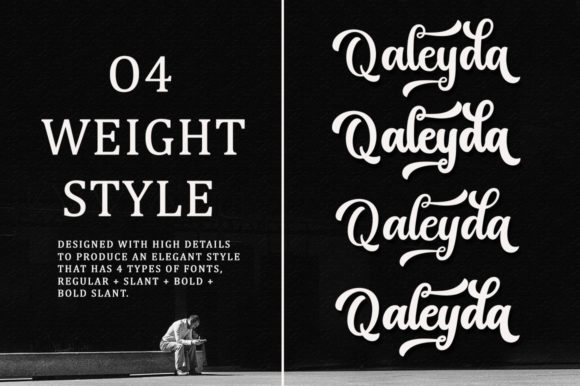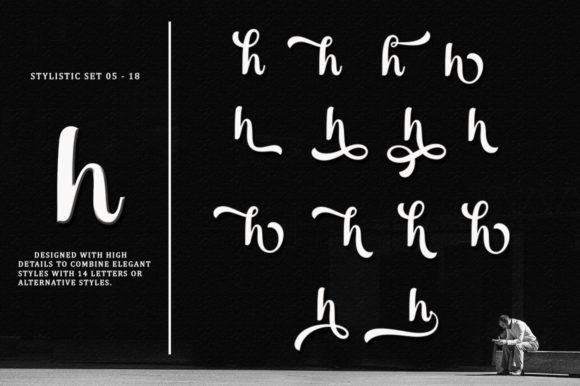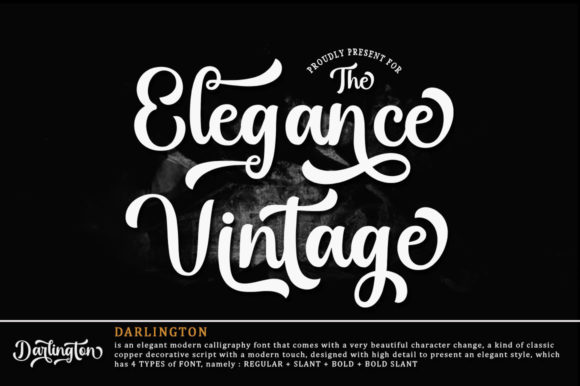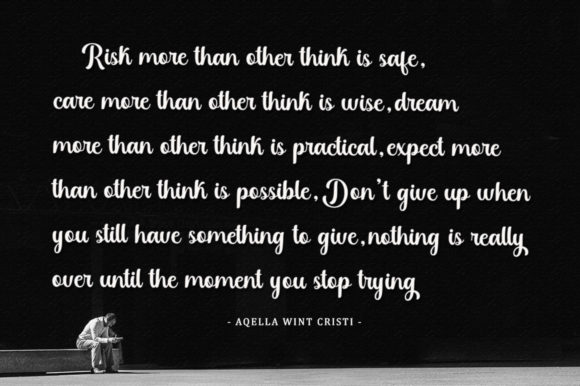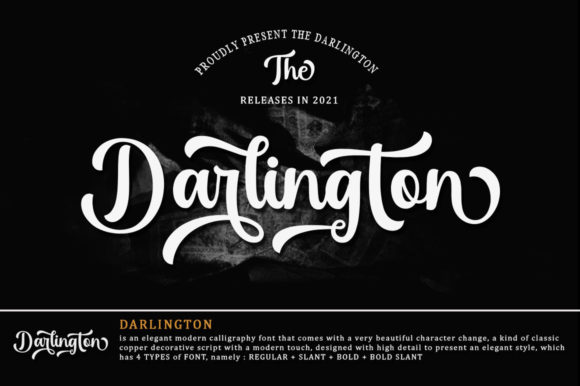
Discover the Elegance of Darlington Font: A Timeless Calligraphy Typeface
In the world of typography, few fonts manage to strike a balance between classic elegance and modern flair. Darlington Font is one such exceptional typeface that embodies sophistication, making it a versatile choice for various design projects. This beautiful calligraphy font is not only a feast for the eyes but also a testament to meticulous design, offering a blend of traditional charm and contemporary appeal.
The Unique Charm of Darlington Font
Darlington Font stands out for its elegant character changes, presenting a classic decorative script with a modern touch. The high level of detail in its design ensures that it exudes an air of elegance, making it perfect for projects that demand a refined aesthetic. The typeface boasts a pleasing appearance, characterized by clean lines, a feminine touch, sensuality, and a dash of glamour, all while maintaining simplicity and readability.
One of the key advantages of Darlington Font is its versatility. Its classic yet modern style makes it suitable for a wide range of applications, from formal to creative projects. Designers and crafters can use Darlington Font in:
- Invitations: Add a touch of sophistication to wedding invitations, birthday parties, and other formal events.
- Labels and Packaging: Elevate product labels and packaging with a stylish and elegant look.
- Restaurant Menus: Create memorable dining experiences with beautifully designed menus.
- Logos: Use Darlington Font to craft unique and memorable logos for brands.
- Fashion and Makeup: Perfect for fashion designers and makeup artists looking to add a luxurious feel to their branding.
- Stationery: Enhance notebooks, journals, and other stationery items with a touch of elegance.
- Novels, Magazines, and Books: Add a classic touch to publications, making them stand out.
- Greeting/Wedding Cards: Create heartfelt and stylish greeting cards.
- Advertising: Use Darlington Font in various advertising materials to capture attention with its glamorous appeal.
Darlington Font comes with PUA (Private Use Area) encoding, a significant advantage for designers. PUA encoding allows easy access to all the amazing glyphs and ligatures, enabling designers to fully explore the font’s potential without any hassle. This feature ensures that users can seamlessly integrate the font into their projects, taking advantage of its extensive range of characters and swashes.
Why Choose Darlington Font?
Darlington Font is more than just a typeface; it’s a design element that can elevate any project. Here are a few reasons why designers and crafters should consider Darlington Font:
- Elegance and Versatility: Offers a perfect blend of classic and modern styles, suitable for a variety of projects.
- High Readability: Despite its decorative nature, Darlington Font maintains high readability, making it practical for both digital and print media.
- Aesthetic Appeal: Its clean, feminine, and glamorous appearance makes it a standout choice for designers looking to add a touch of sophistication.
- User-Friendly: With PUA encoding, accessing the font’s features is straightforward, saving designers time and effort.
Darlington Font is a stunning calligraphy typeface that brings a unique blend of elegance and modernity to the world of typography. Its versatility, aesthetic appeal, and user-friendly features make it an excellent choice for designers and crafters working on a wide range of projects. Whether you’re creating formal invitations, luxurious branding, or simply looking for a font that adds a touch of glamour to your designs, Darlington Font is sure to exceed your expectations. With its timeless appeal and extensive design possibilities, Darlington Font is poised to become a favorite in the design community.